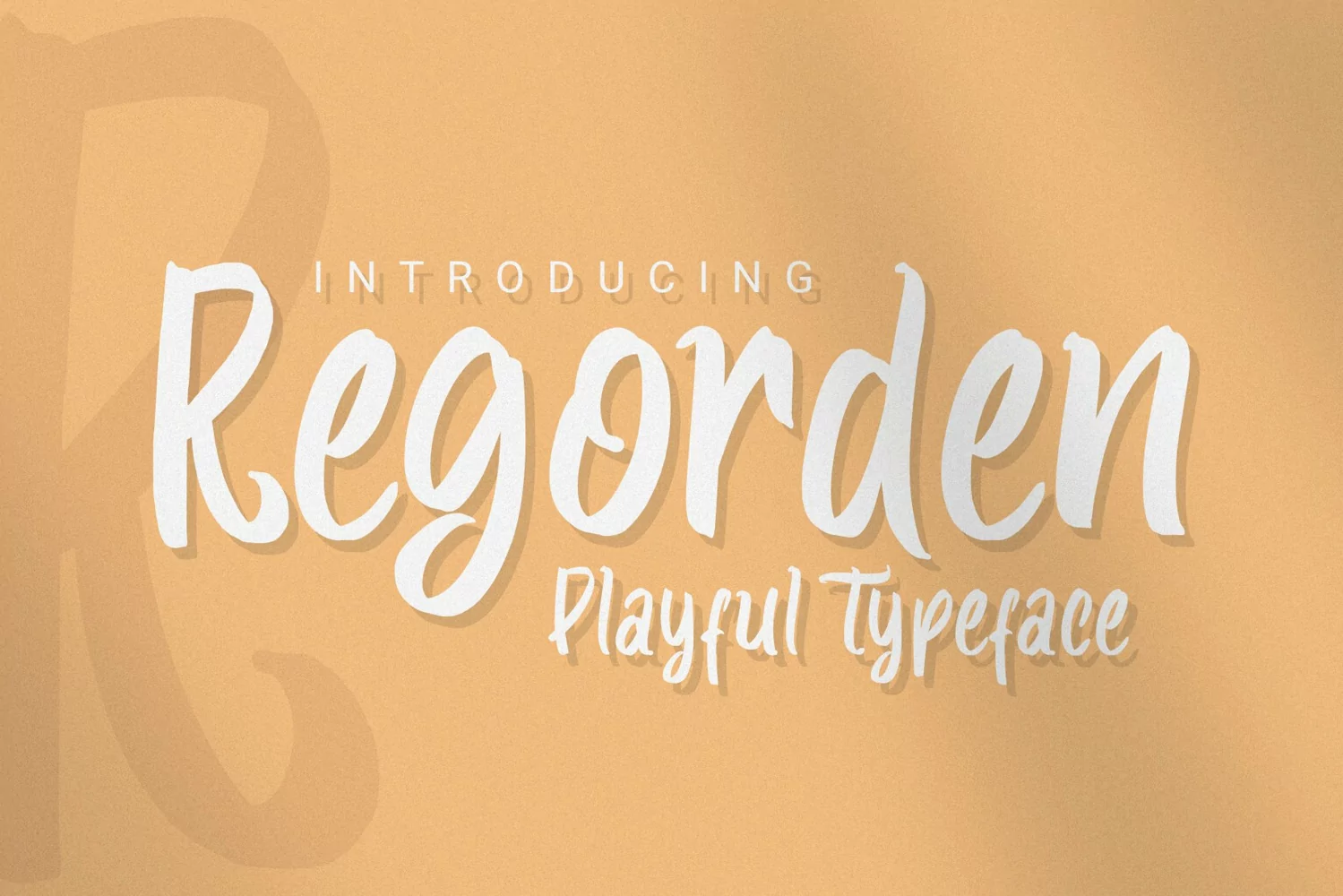
Regorden - Playful Typeface
Regorden
Regorden - Playful Typeface is a casual font made wholeheartedly for designers to improve their designs and perfect their projects.
Regorden - Playful Typeface is perfect for designs, logos, social media, brands, advertisements, product designs, handwritten quotes, product packaging, headers, posters, merchandise, and other designs.